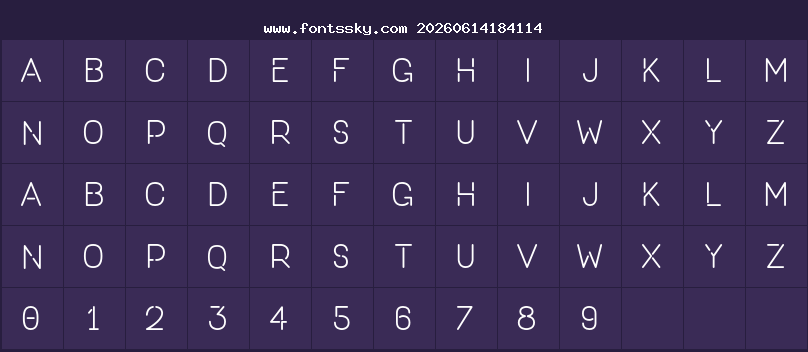
ONE DAY Preview
• Font Name: ONE DAY
About ONE DAY.otf
ONE DAY.otf is a modern, elegant sans-serif font designed for ultimate readability and visual harmony. Perfect for branding, headlines, web design, and print materials.